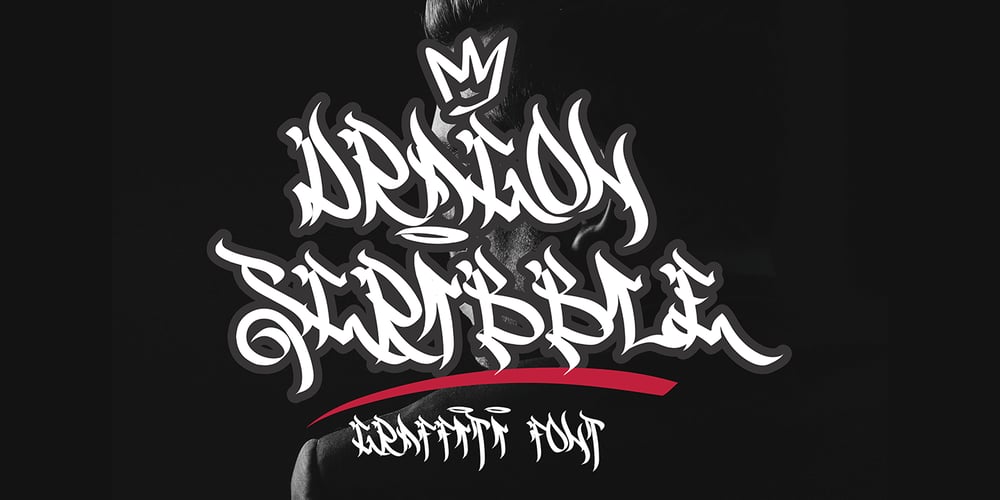
Dragon Scribble Font Family was designed by Sipanji and published by Sipanji21. Dragon Scribble contains 2 styles and family package options. Dragon Scribble Graffiti is a display font with Curved graffiti style. It will elevate a wide range of design projects to the highest level, be it branding, headings, wedding designs, tittle, signatures, logos, labels, movie, video, magazine, logotype, crafting, packaging, advertising and much more!thank you very much, andhave a nice day.